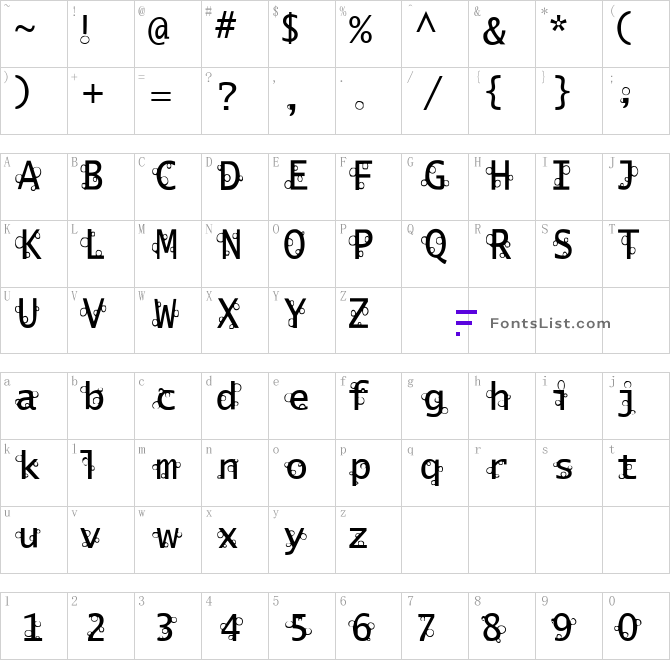
AnniesBubbles.ttf is a very beautiful artistic font, AnniesBubbles.ttf is widely used in the design and printing of various books and pictures,AnniesBubbles.ttf has a strong visual impact,AnniesBubbles.ttf is a commonly used font in newspapers, magazines and books, and is used in posters, e-commerce Poster design, store design, logo design, font design and other fields.AnniesBubbles.